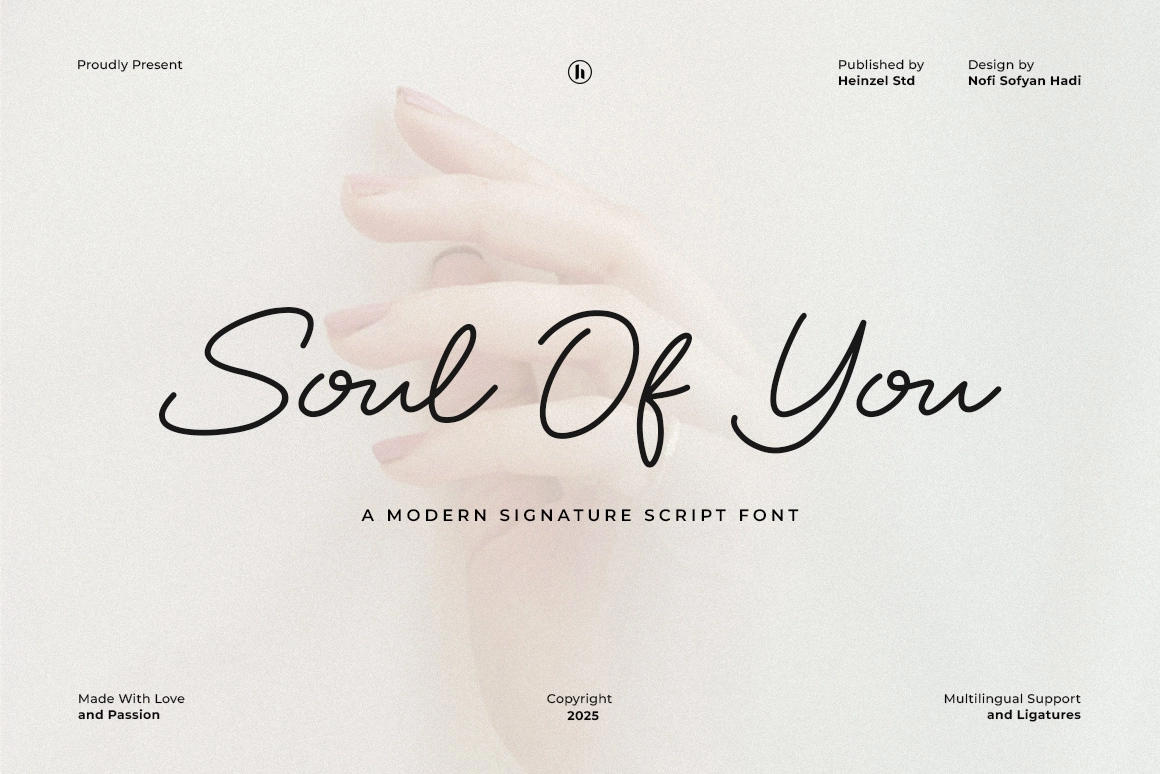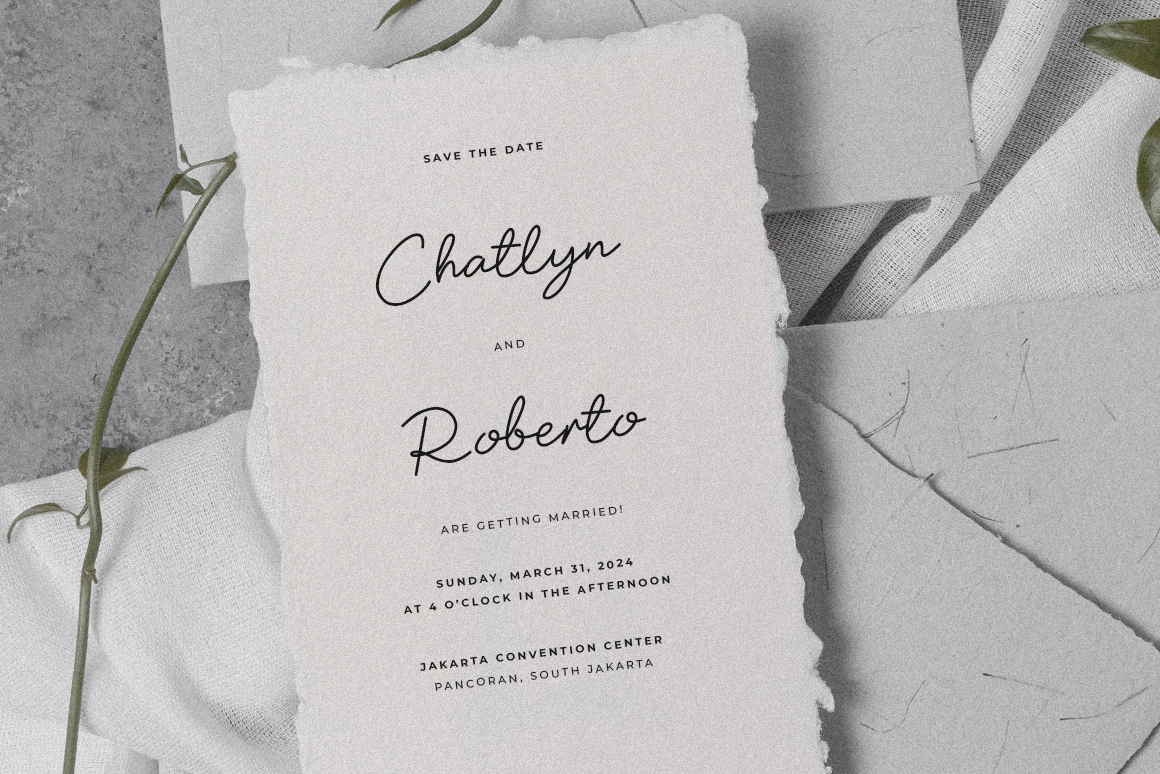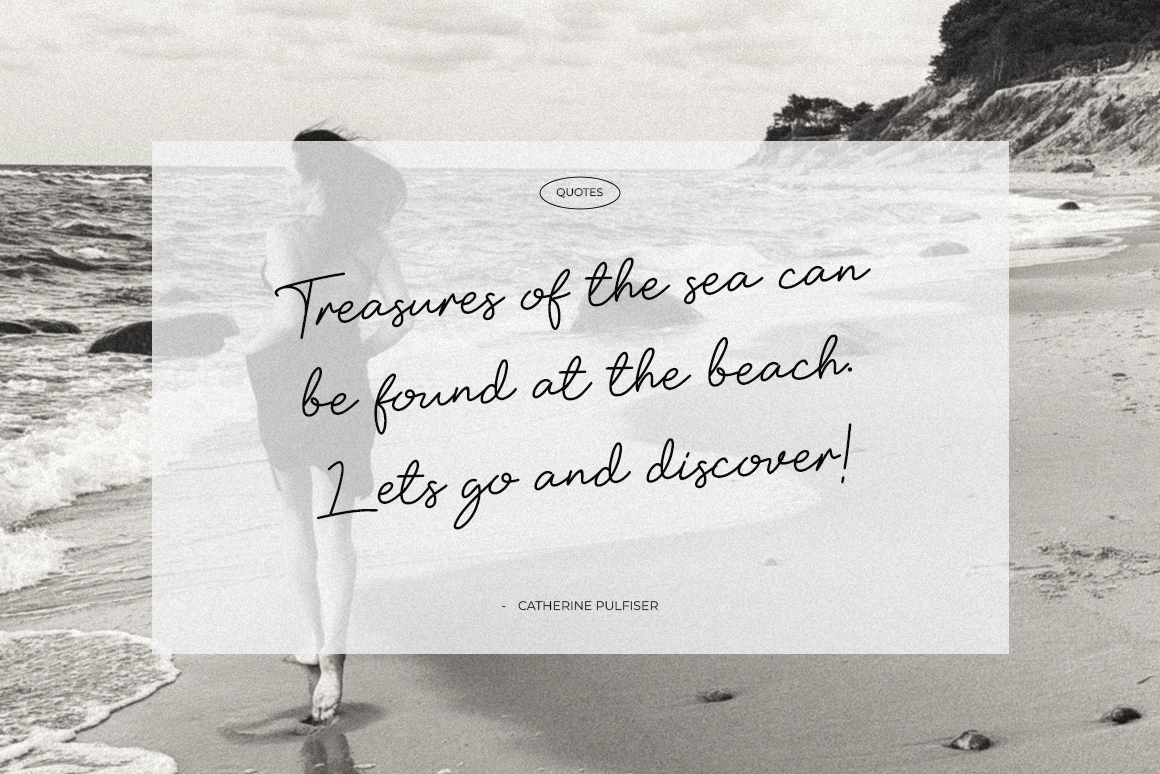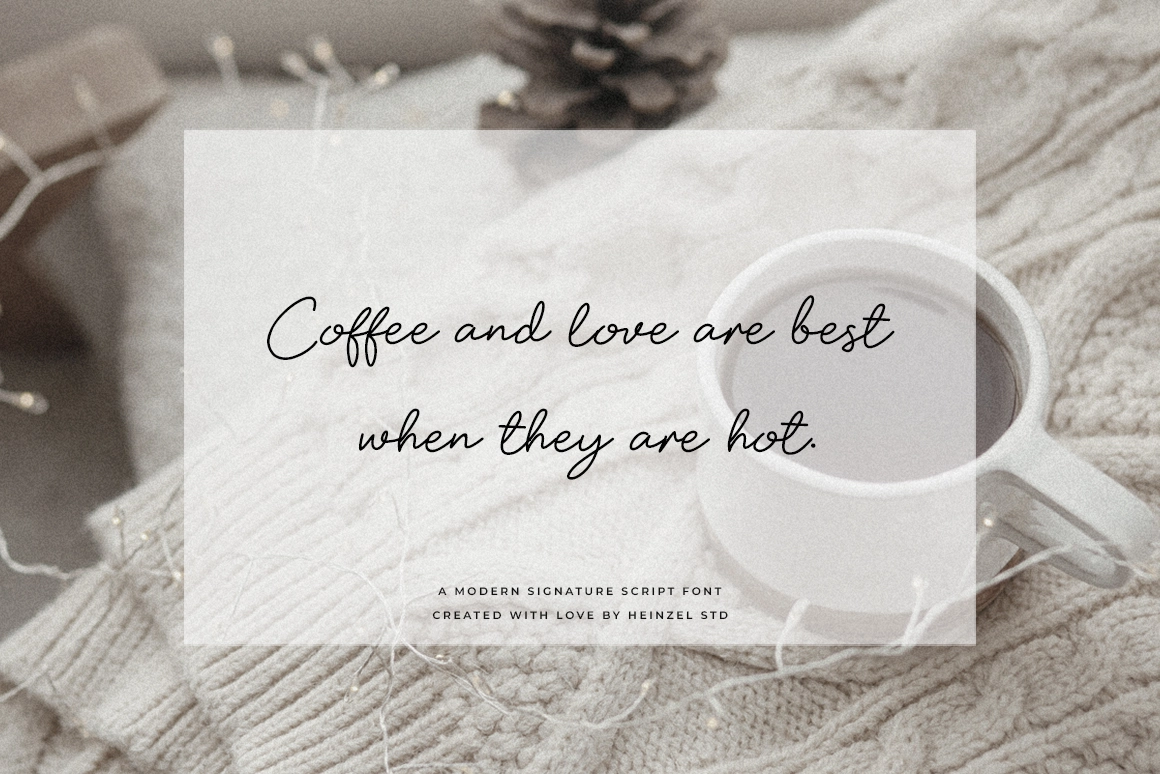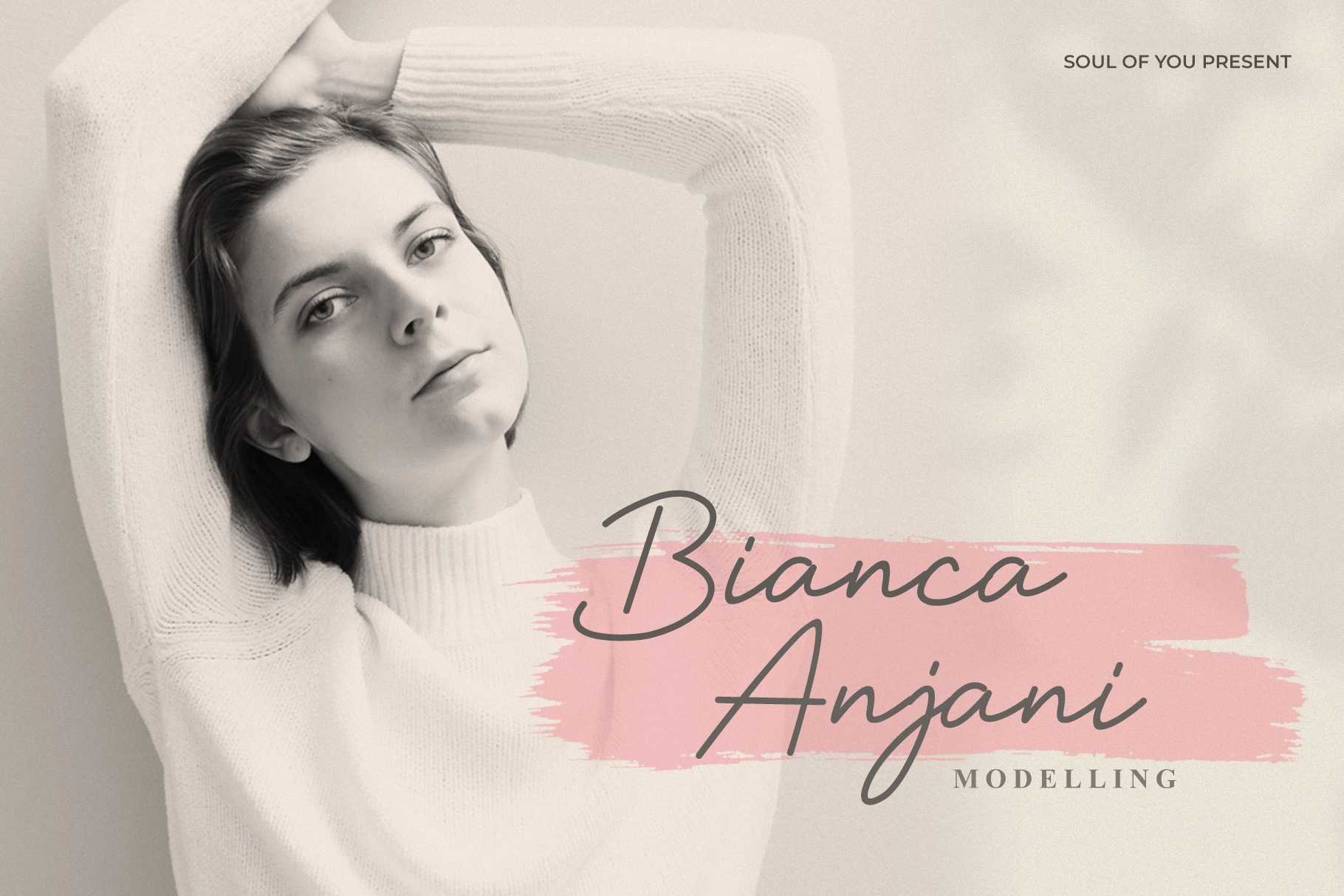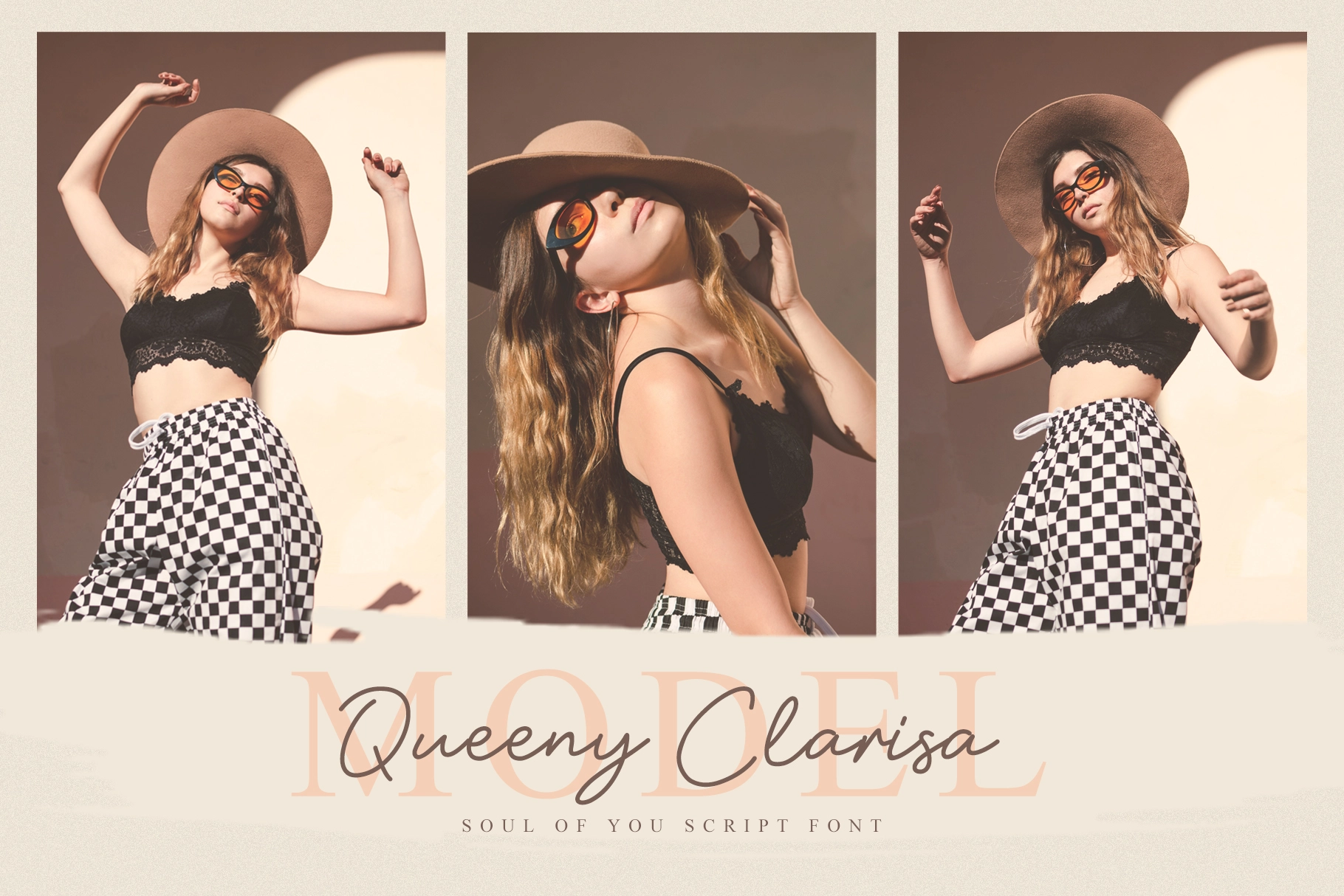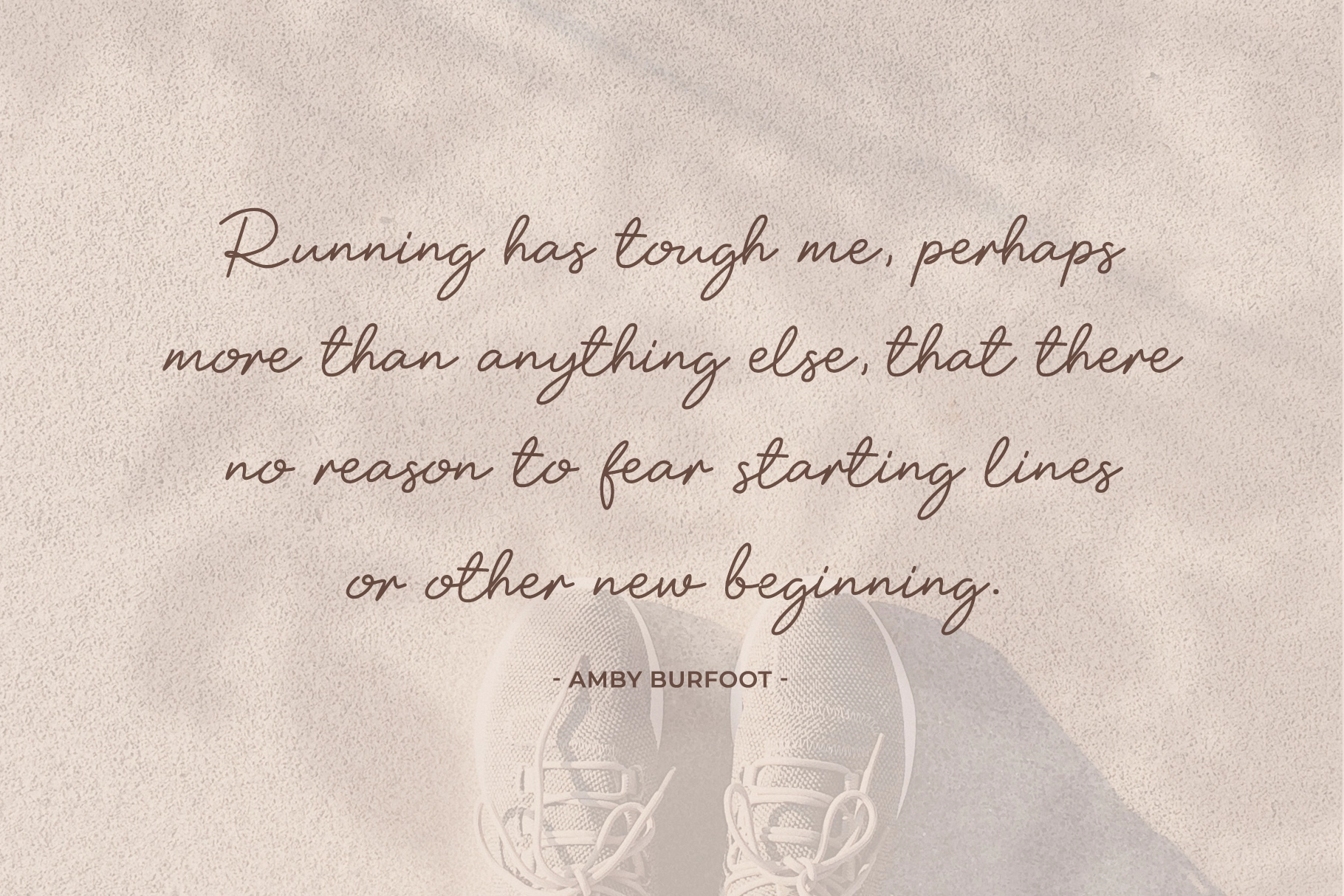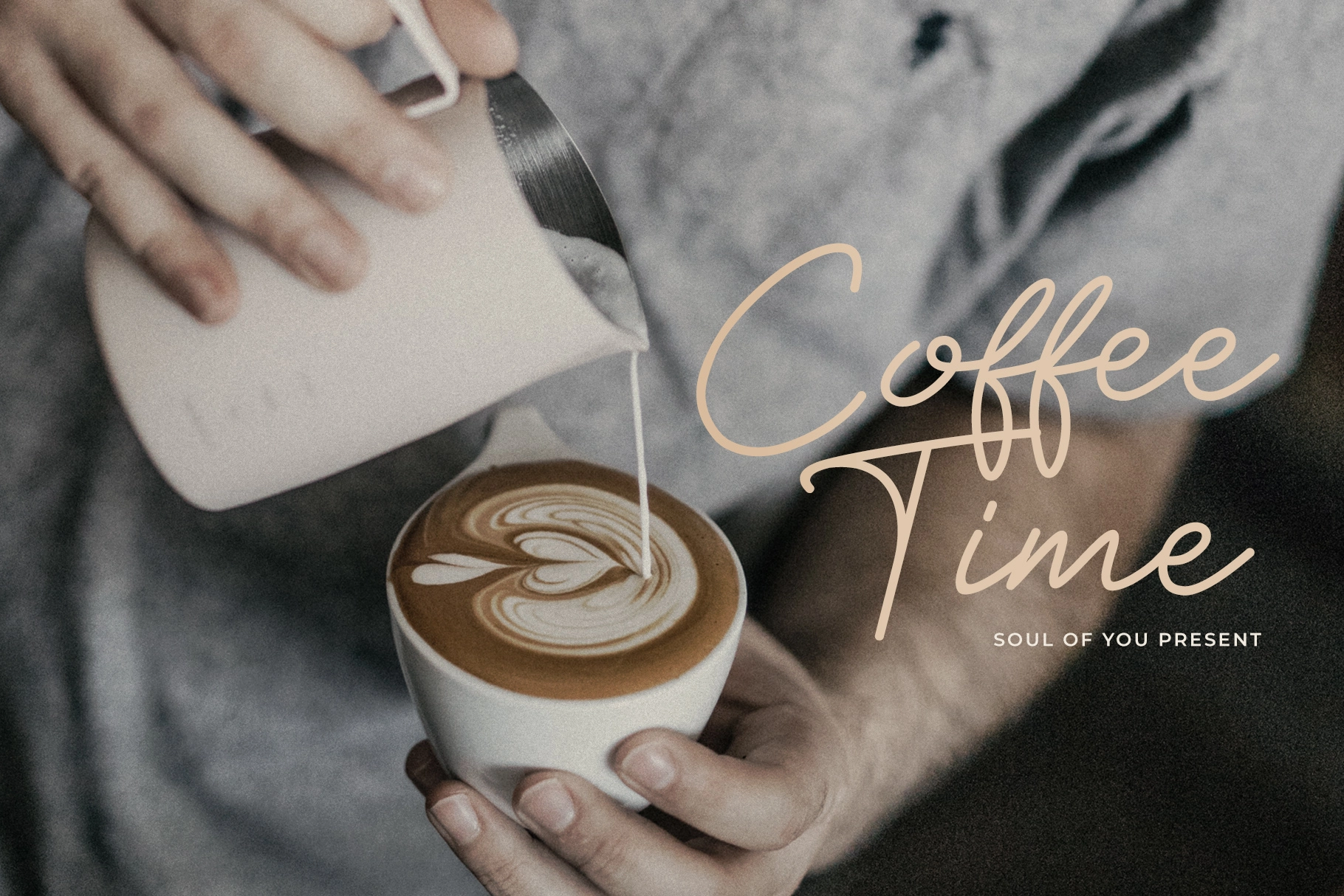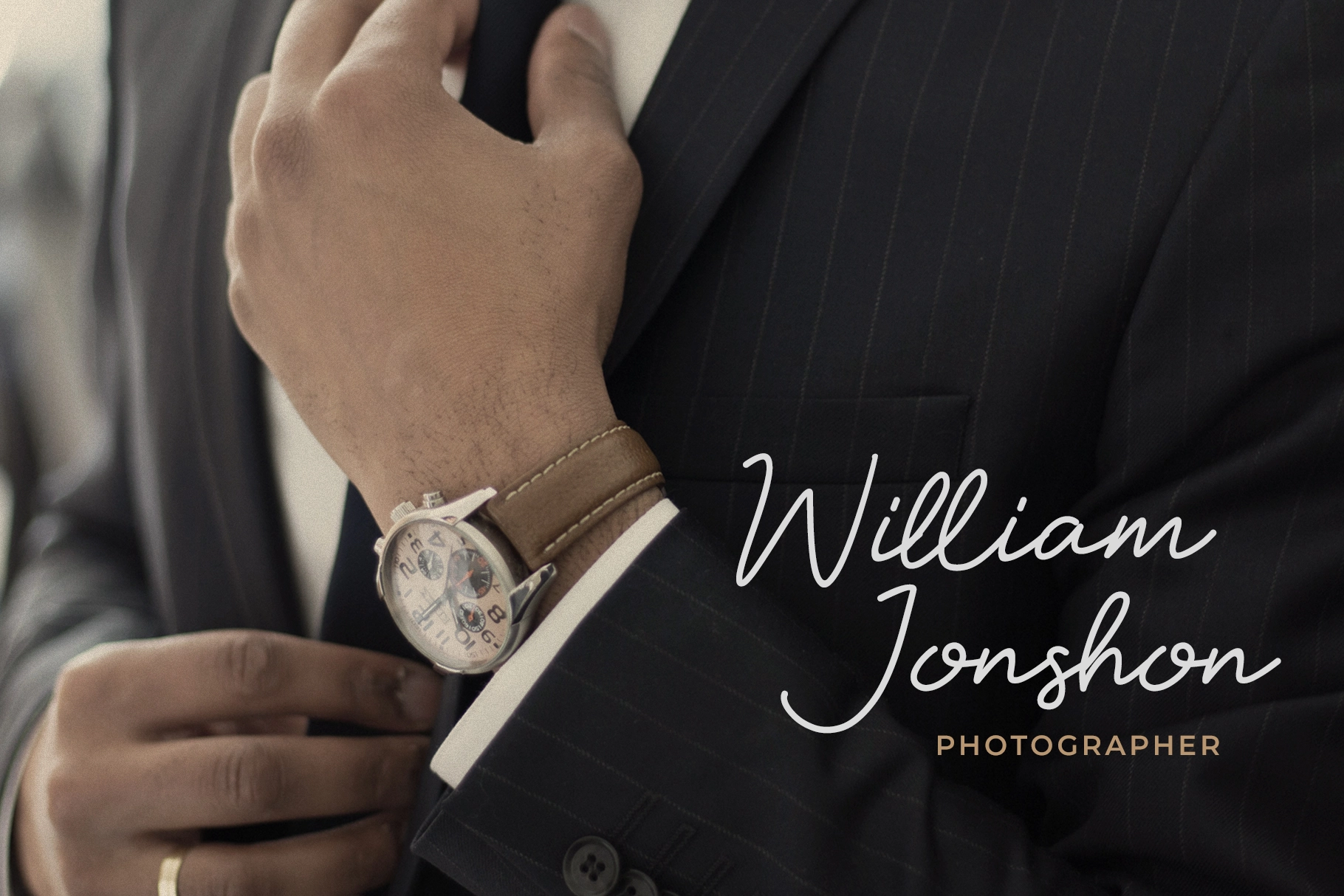
Soul Of You - Modern Signature Script Font
A signature script with long, airy strokes and a clean handwritten rhythm, this font is made for personal branding that needs warmth without looking overly polished. The letterforms are smooth, open, and easy to read, with a graceful pace that works across romantic, lifestyle, and editorial projects.
Use Soul Of You for wedding invitations, engagement announcements, save-the-date cards, boutique logos, photography watermarks, beauty packaging, fashion lookbooks, social media quotes, greeting cards, stationery, blog headers, product labels, and more.
• Delicate handwritten style
• Ligatures